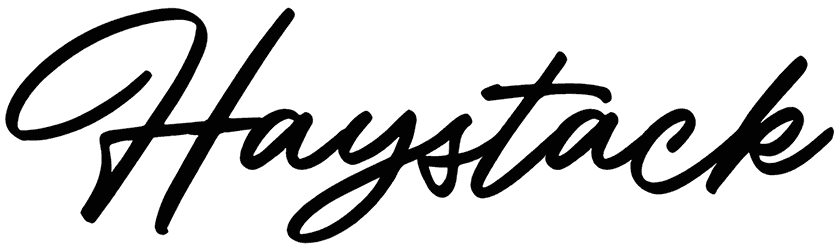
Haystack Font
With this nice and elegant handwritten font, your subsequent design can become an admirable work. Haystack has a beautiful twisted letter face that would be harmonized with many creative projects. Just set this script font on your words of designs from postcards to apparel and enable them to shine. Bear in mind, it may be tricky to read.